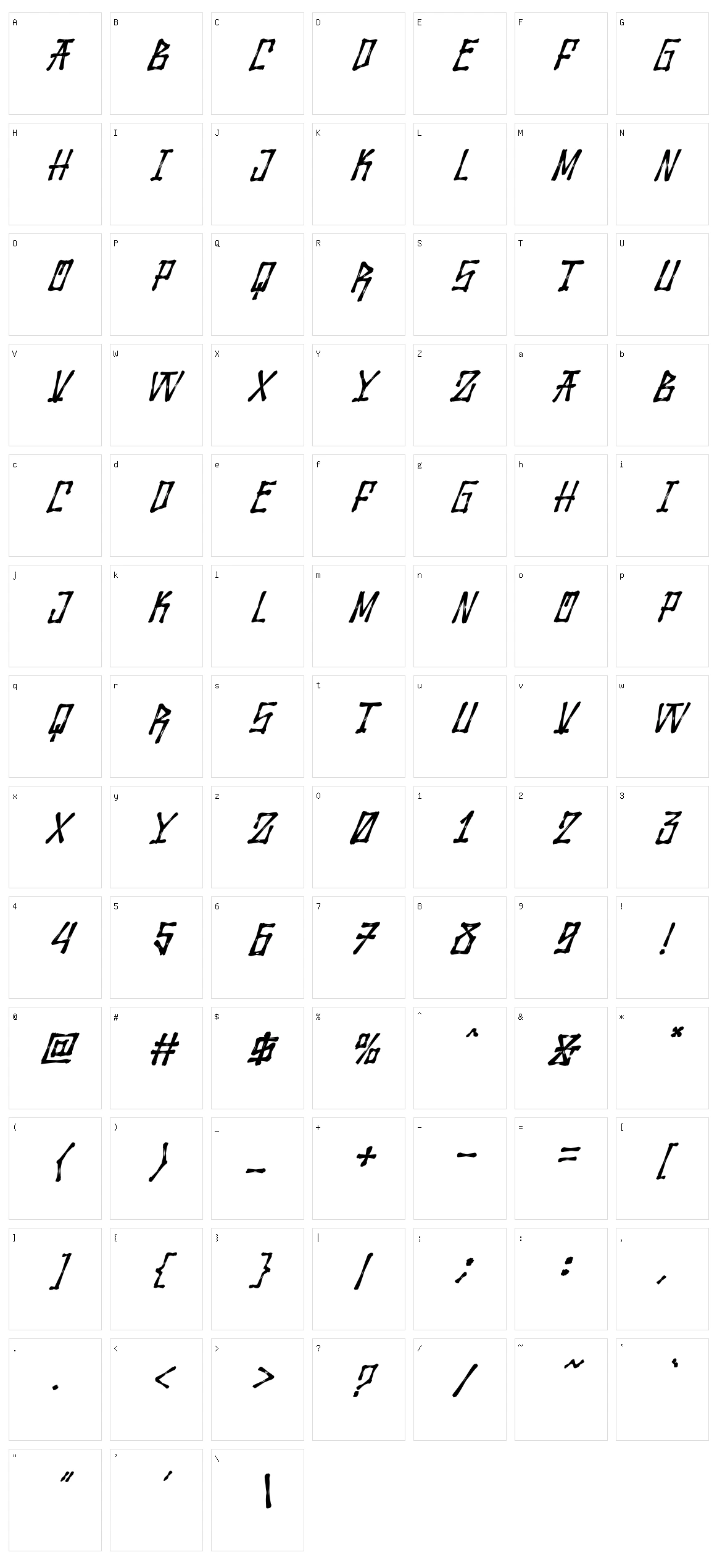
The free font Wolfraid is carefully designed by Kong Font, showcasing a thoughtful balance of creativity and usability and falls under the Halloween font style. When you download the ZIP file, it contains only 1154.89 KB of font files, making it lightweight and quick to download. Please review the license details below to understand permitted usage and distribution rights. If license information is not available, we recommend using this font for personal projects only or contacting the author directly for commercial usage permissions.